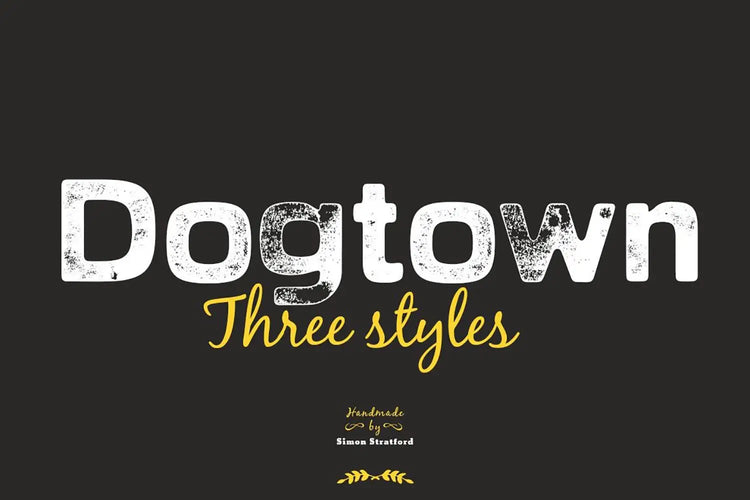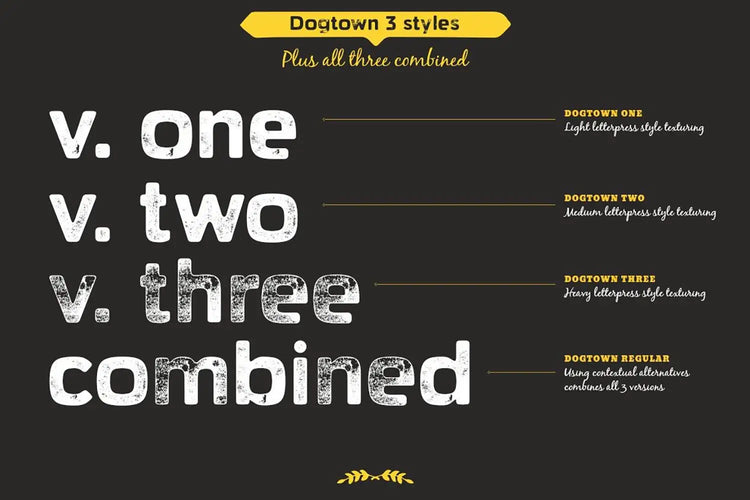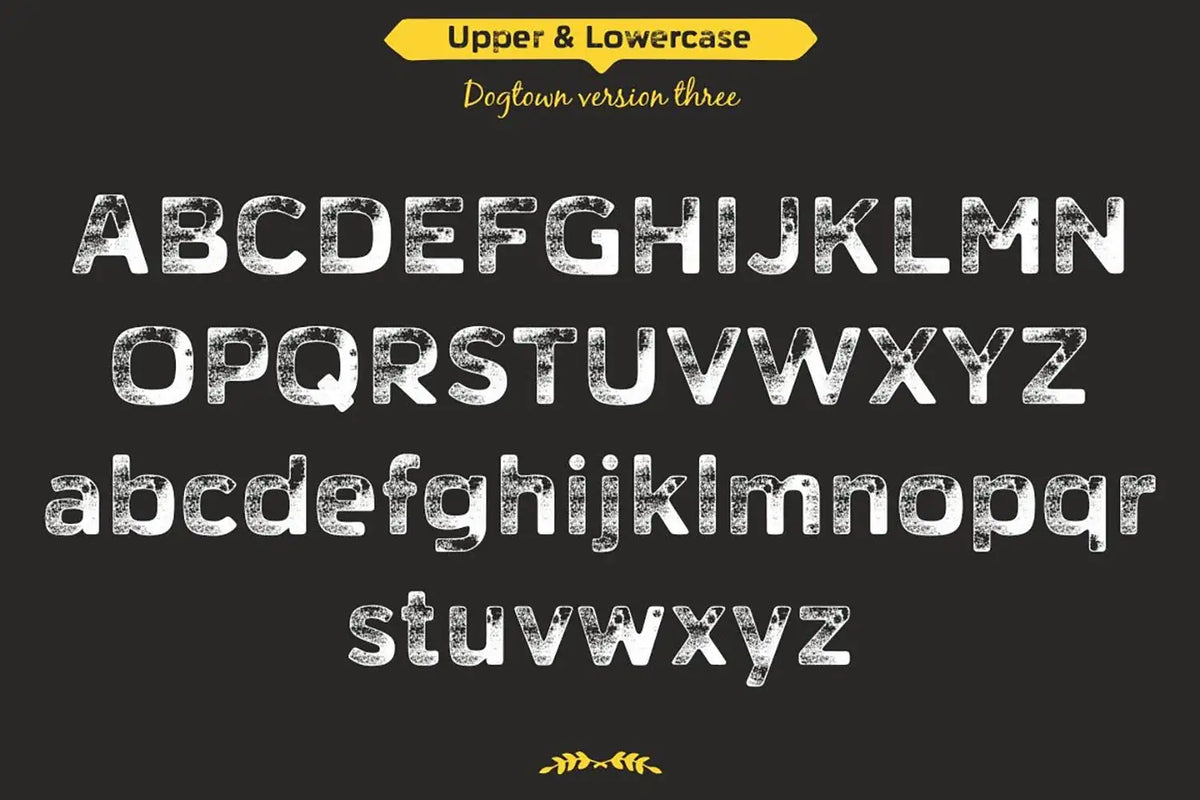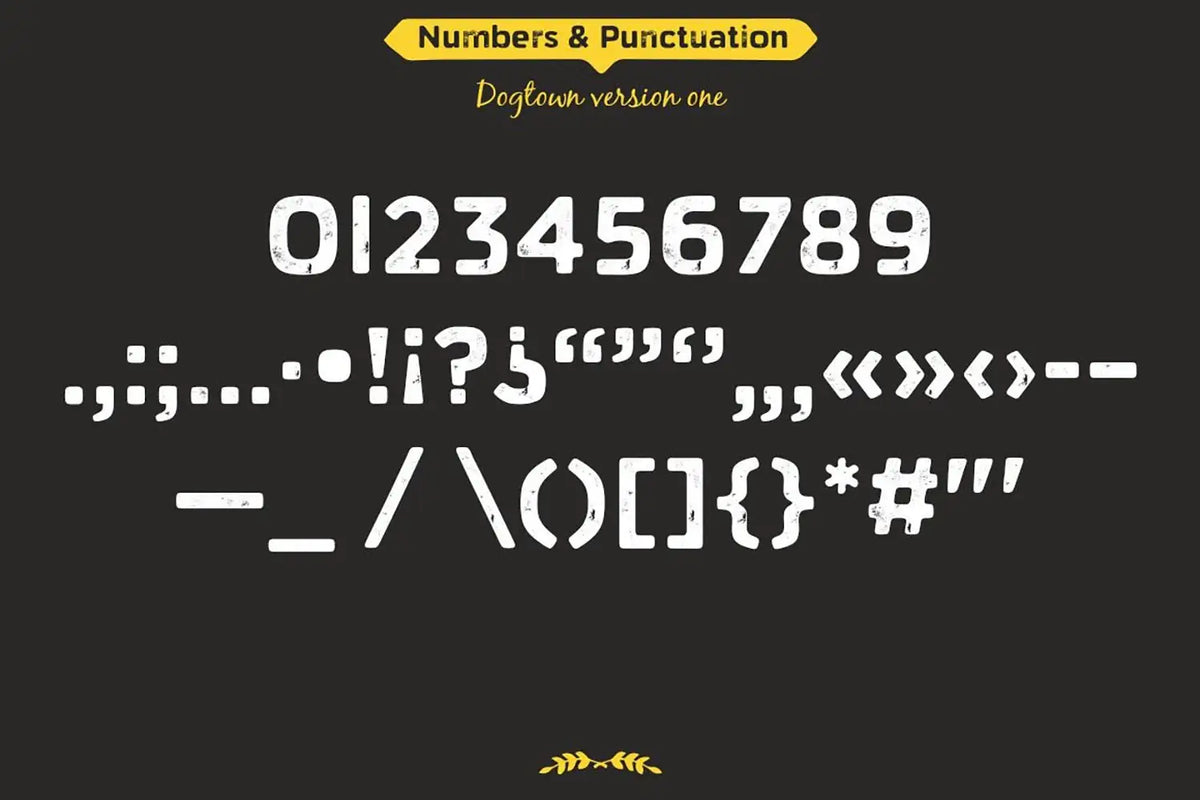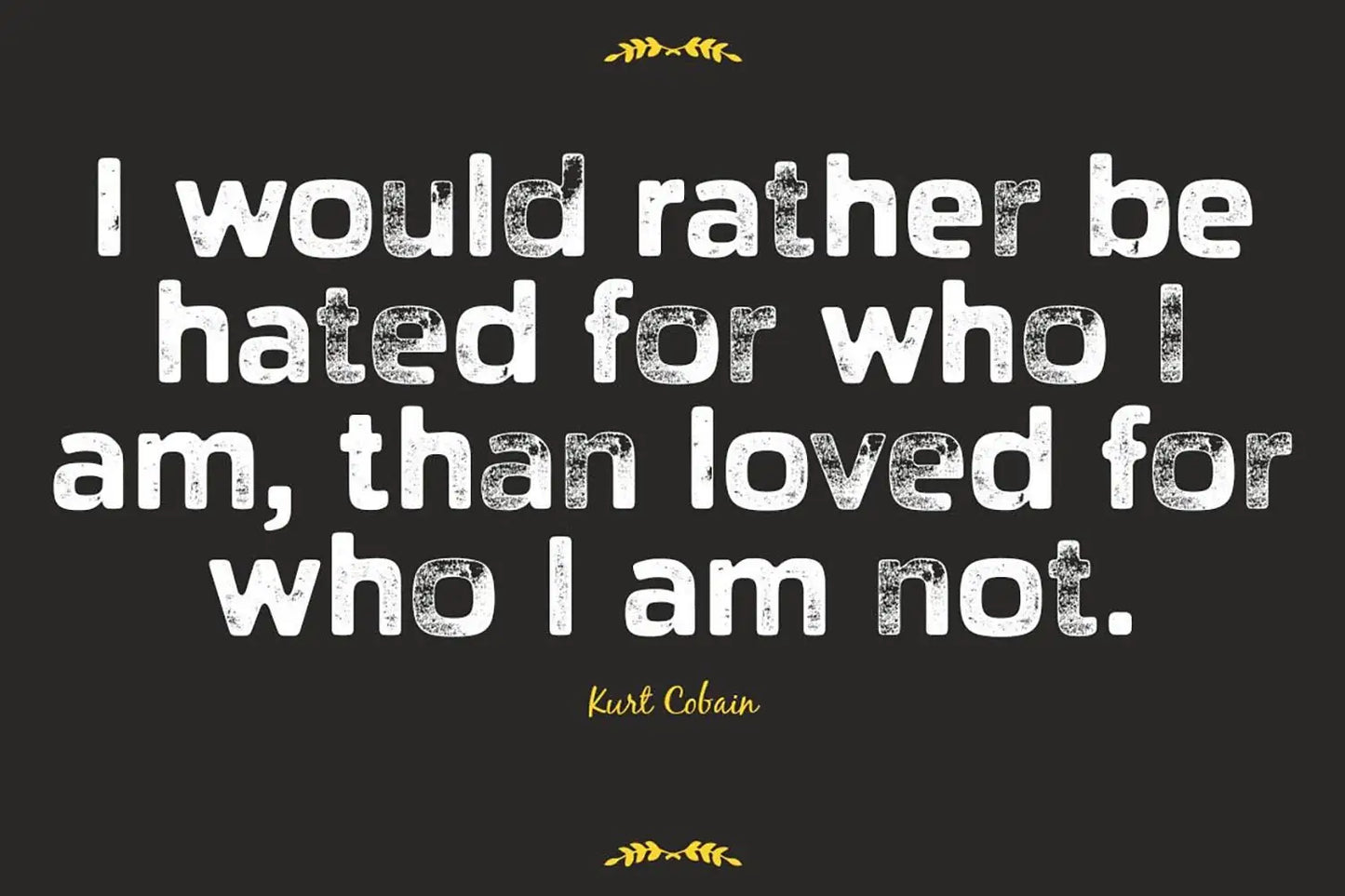
Dogtown — Vintage Letterpress Display Font
About Dogtown
Dogtown font is my attempt at adding a massive amount of texture to a Typeface. I used my own rolled ink textures to give that old-school printed look and feel. It has a mix of three styles to give that wood-type vintage letterpress effect.
Dogtown font is like that vintage leather jacket you found at a thrift store – full of character and stories to tell. It's got this rugged, worn-in charm that's perfect for adding a touch of raw authenticity to your designs.
Dogtown has four versions in total:
- Dogtown 1 – With a light texture
- Dogtown 2 – With medium texture
- Dogtown 3 – With heavy texture
- Dogtown (regular) – Contains all of the above using contextual alternatives. That means it will alternate between 3 glyphs for each letter, number, and punctuation mark. You will need to turn on the contextual alternatives option in your design package for this to work.
You can also switch out letters by selecting through the glyphs palette or by selecting Dogtown one, two, or three fonts. The intention was to make everything look more irregular and less repetitive, more like natural letterpress printing.
If the dirty font Dogtown were a celebrity
If the dirty font Dogtown were a celebrity, it would be the gritty and unapologetic rock legend Keith Richards of the Rolling Stones. Just as Keith Richards is known for his rebellious attitude and iconic guitar riffs, Dogtown font exudes a raw and edgy spirit in the type realm.